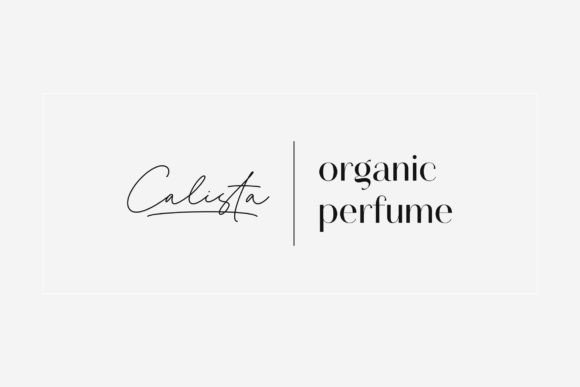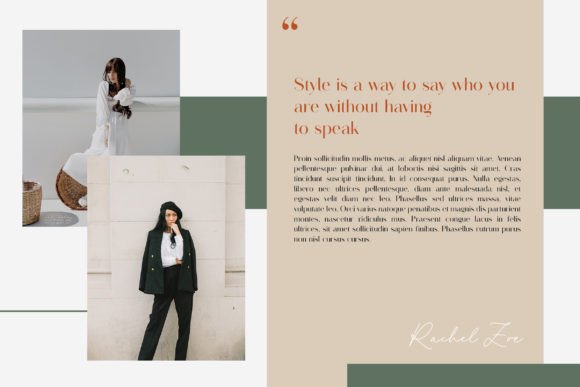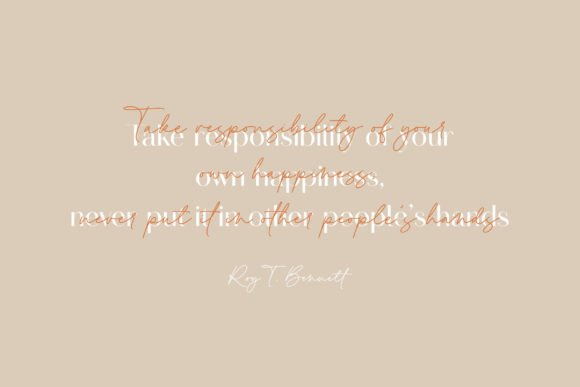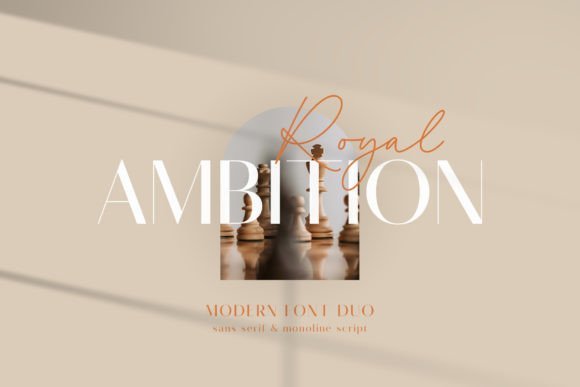
Introduction to Royal Ambition Duo Font
Royal Ambition is a perfect mix of a modern script and sans serif font.
Together or apart, these fonts are ideal for adding a chic and cheery touch to your crafts .
Royal Ambition Duo Font offers exceptional quality and versatility, making it a valuable addition to your design toolkit. Whether you’re creating for personal projects or commercial use, Royal Ambition Duo Font delivers professional results.